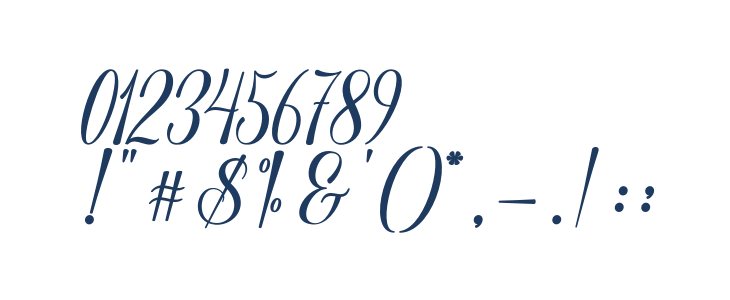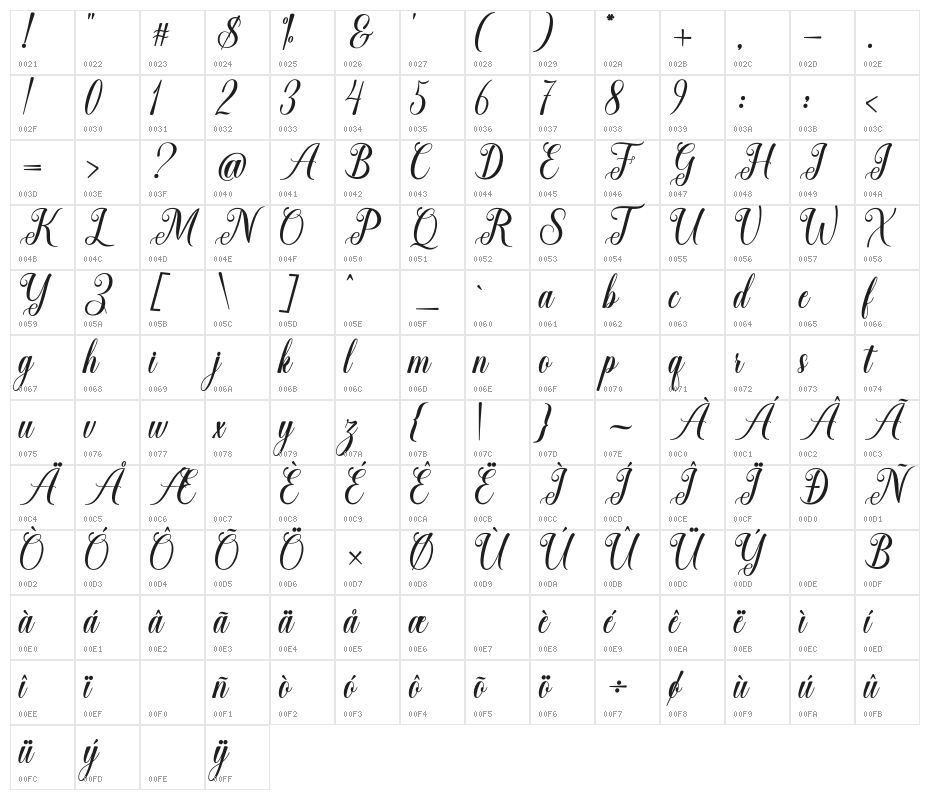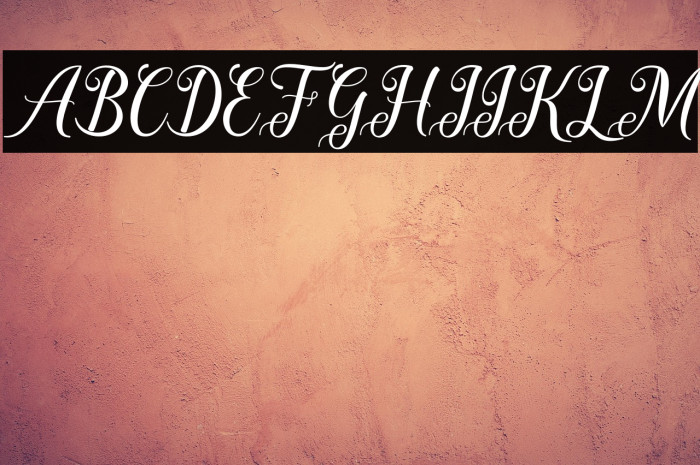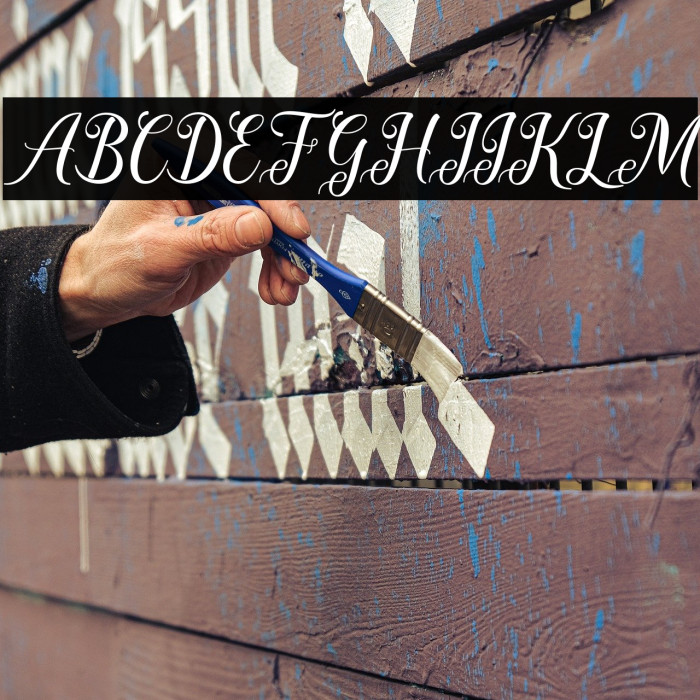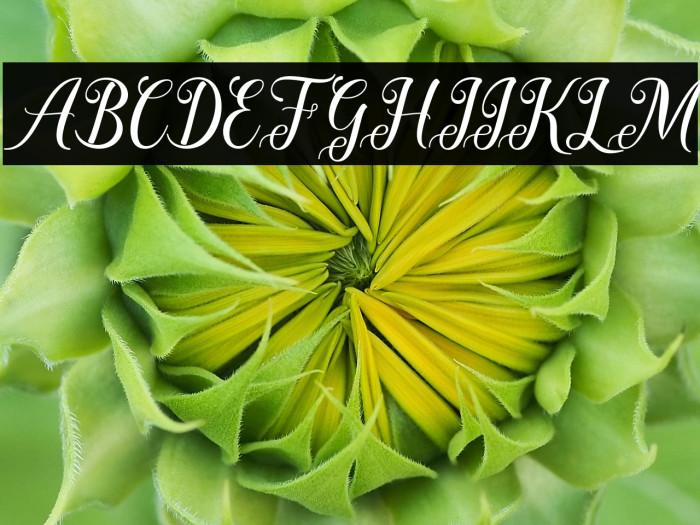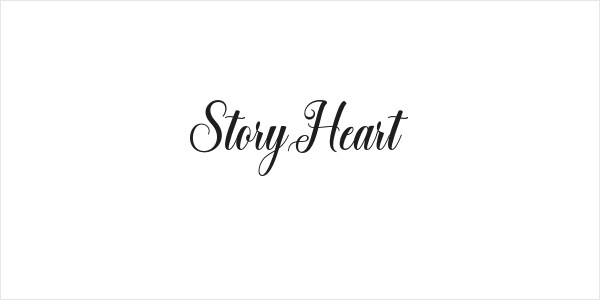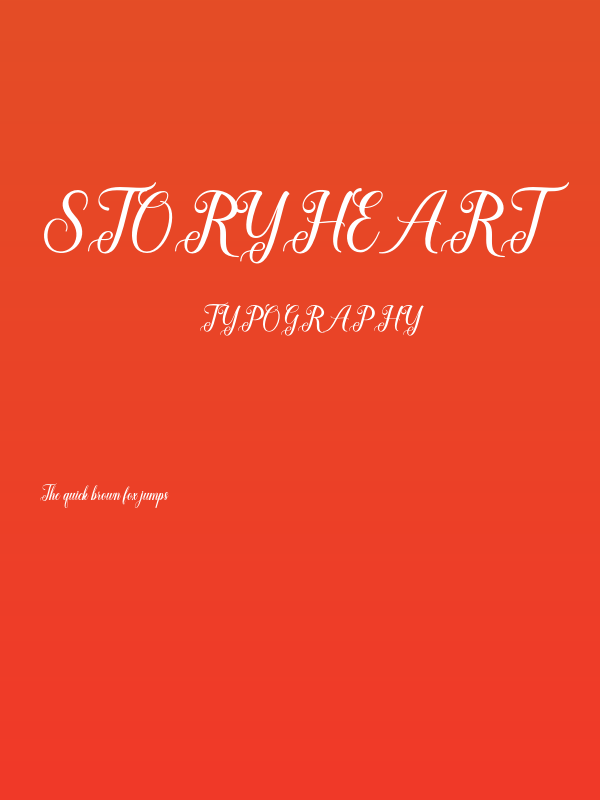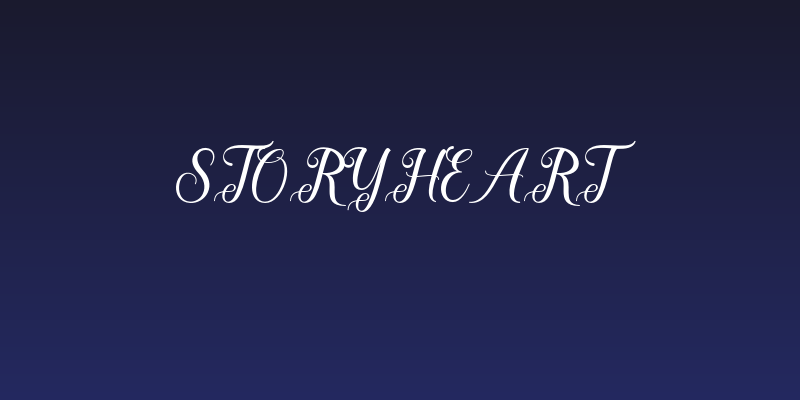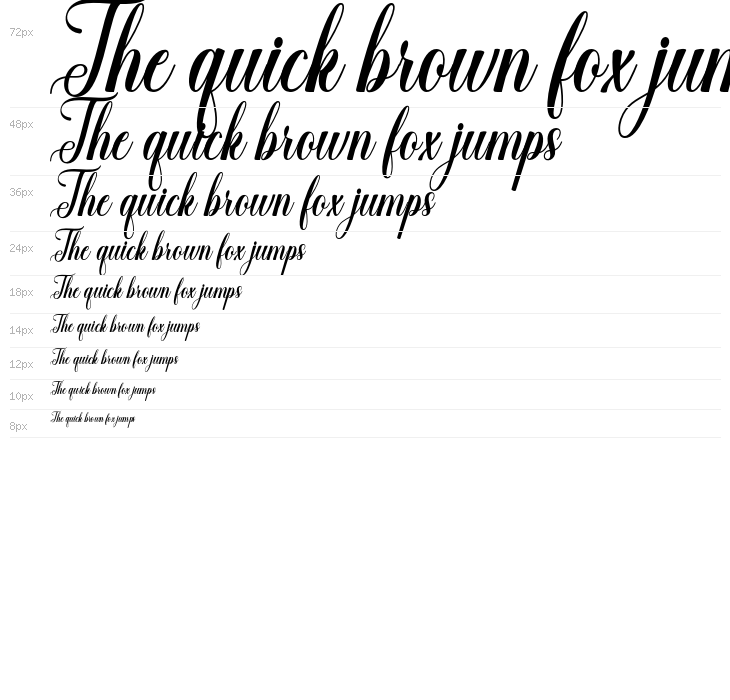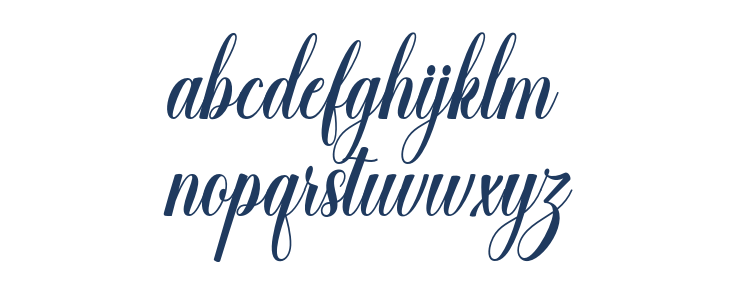
StoryHeart Font
StoryHeart Description
This elegant script font features a flowing, cursive style with high contrast between thick and thin strokes. The uppercase letters are ornate, with sweeping curves and delicate loops, while the lowercase letters maintain a graceful and fluid appearance. The numerals and special characters are designed with the same attention to detail, ensuring a cohesive look throughout. This font exudes sophistication and charm, making it ideal for projects that require a touch of elegance.
| Use Case | Invitations, Branding, Packaging |
| Proposed Projects | Ideal for wedding invitations, elegant branding, luxury product packaging, and decorative signage. |